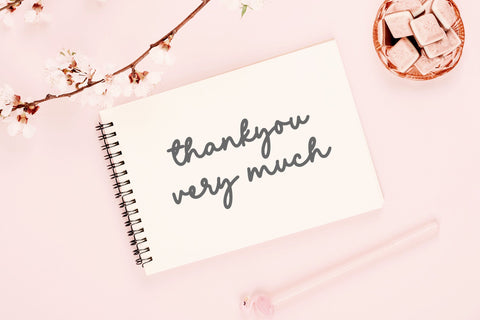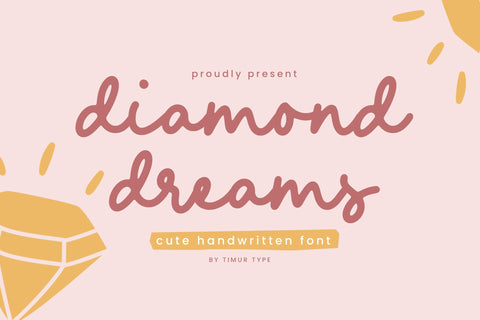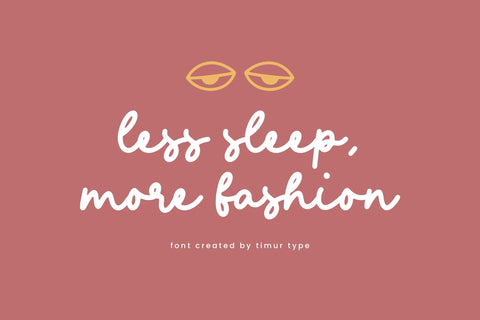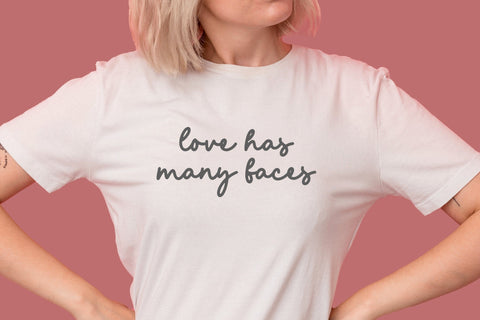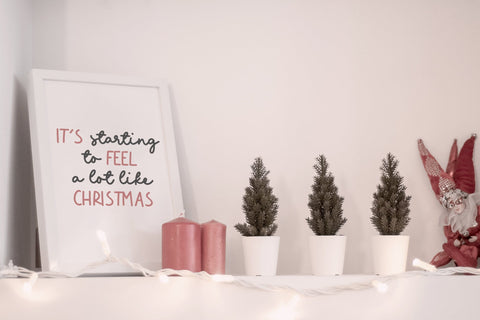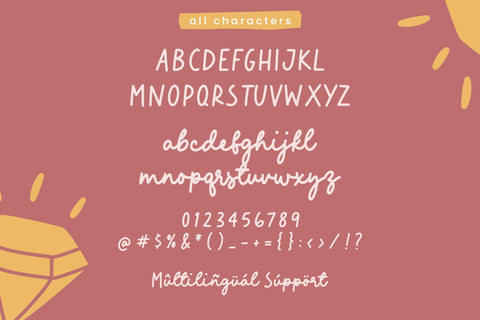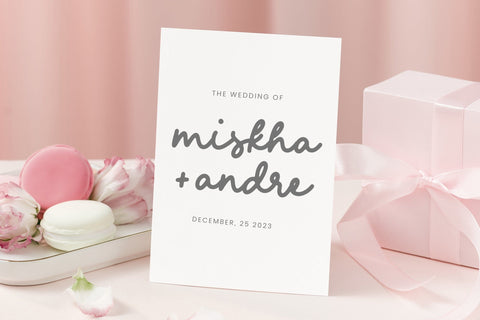
Diamond dreams - Handwritten font
Introduced by the Timur type
Proudly Presenting diamond dreams
diamond dreams handwritten font display features lines with smooth and unique edges, giving it a distinctive look.
This font resembles handwriting. With attention to detail and beautiful strokes in each line, this font adds a touch of sophistication and distinctive style to any design or text it is applied to.
The distinctive striped nature of this font makes it perfect for creating attention-grabbing titles, logos, or other elements.
diamond dreams Font also supports multilingualism.